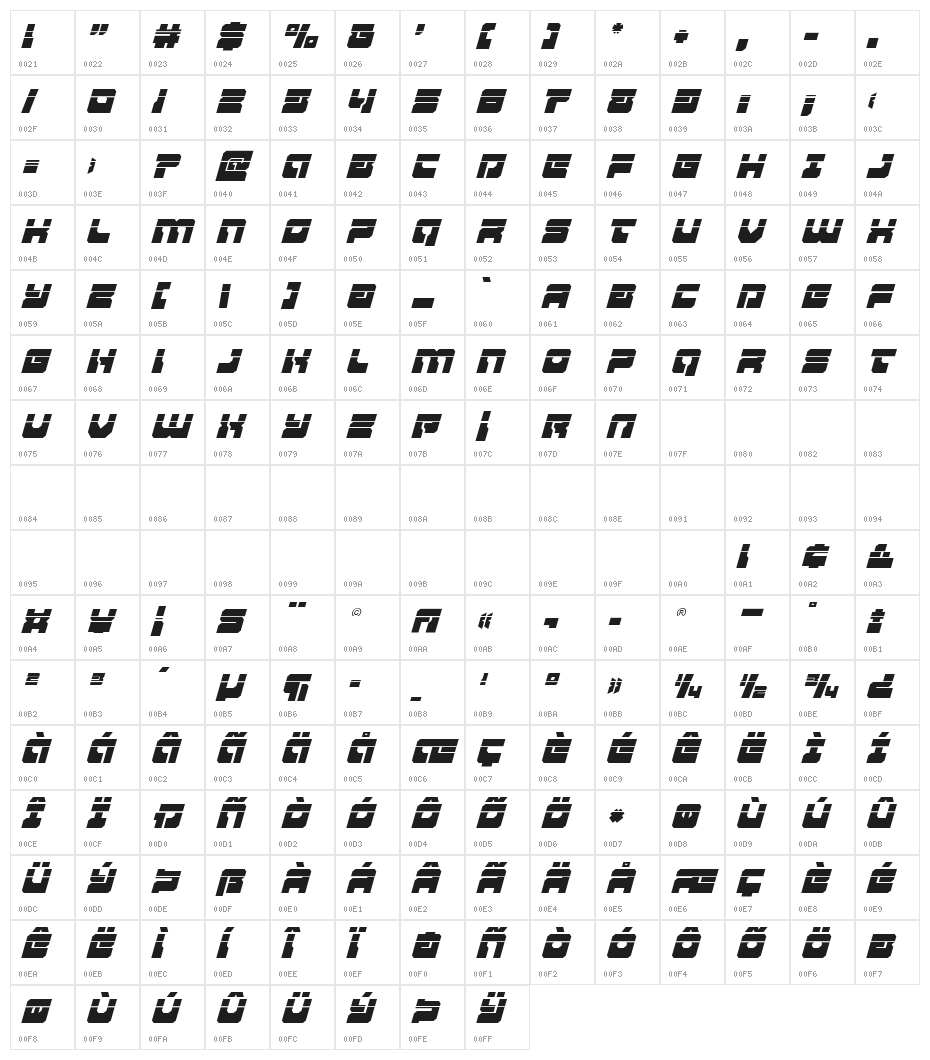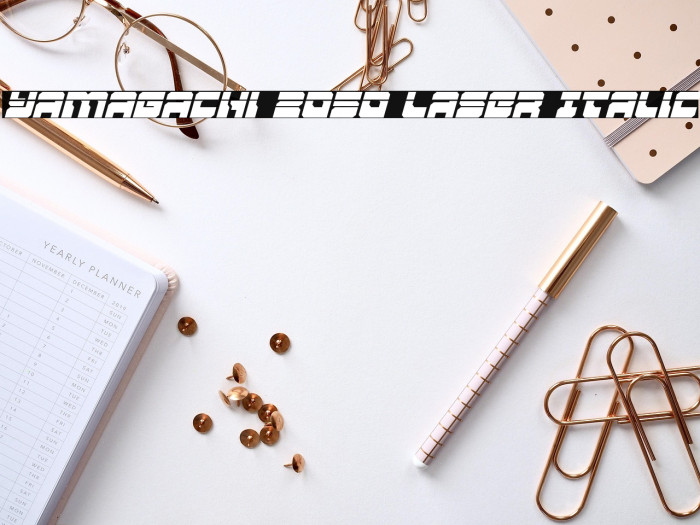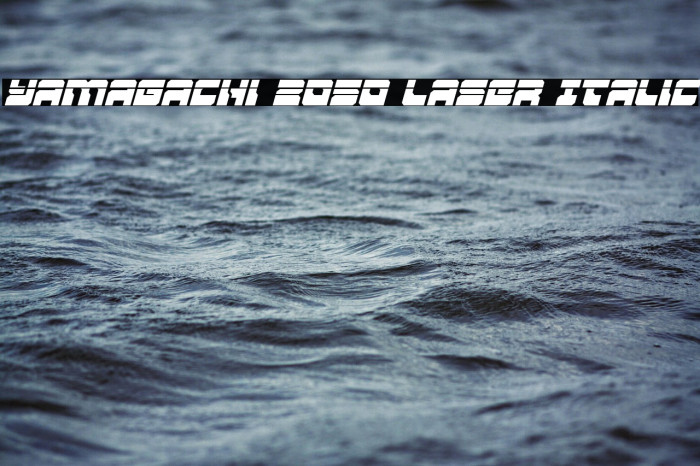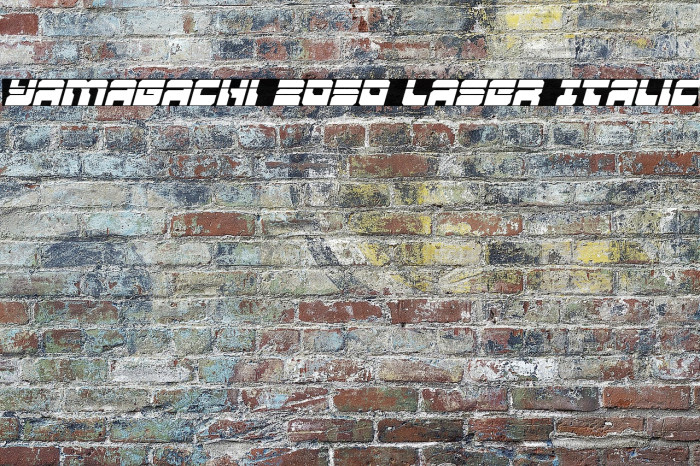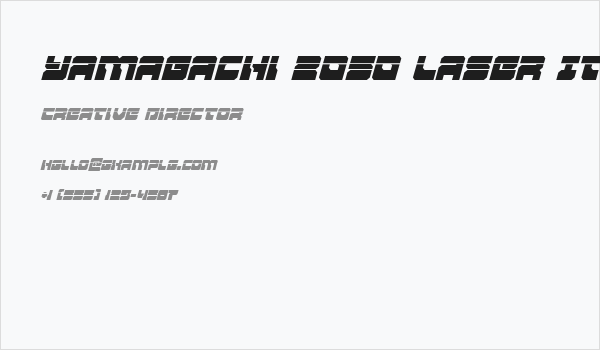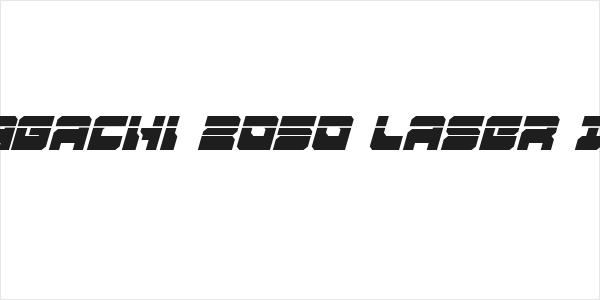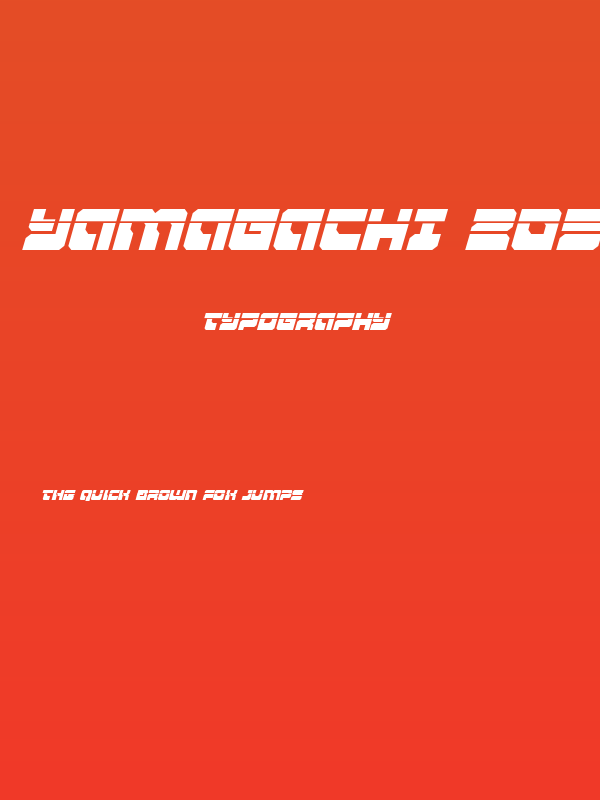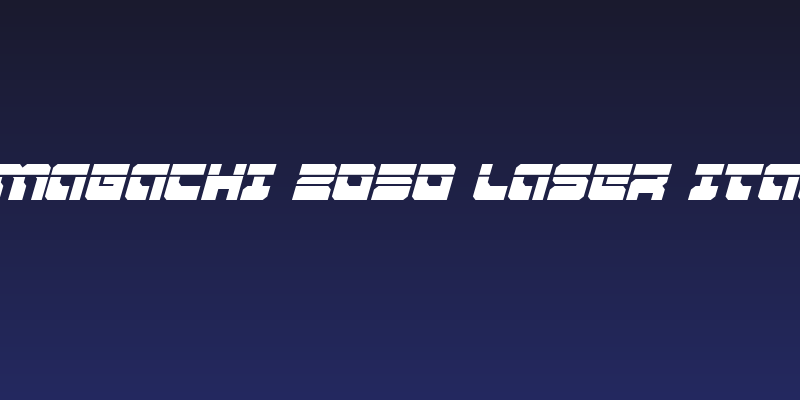
Yamagachi 2050 Laser Italic Font
Yamagachi 2050 Laser Italic Description
This futuristic and bold typeface features angular, geometric shapes with a distinct italic slant, giving it a dynamic and forward-moving appearance. The characters are constructed with sharp edges and a blocky structure, reminiscent of digital or sci-fi themes. The uppercase and lowercase letters maintain a consistent style, with uniform stroke widths that contribute to a cohesive look. The numerals and special characters are designed to match the overall aesthetic, ensuring versatility across different uses. This font's unique style makes it stand out, ideal for projects that require a modern and edgy touch.
| Proposed Projects | Ideal for sci-fi themed designs, video game graphics, tech branding, and futuristic posters. |